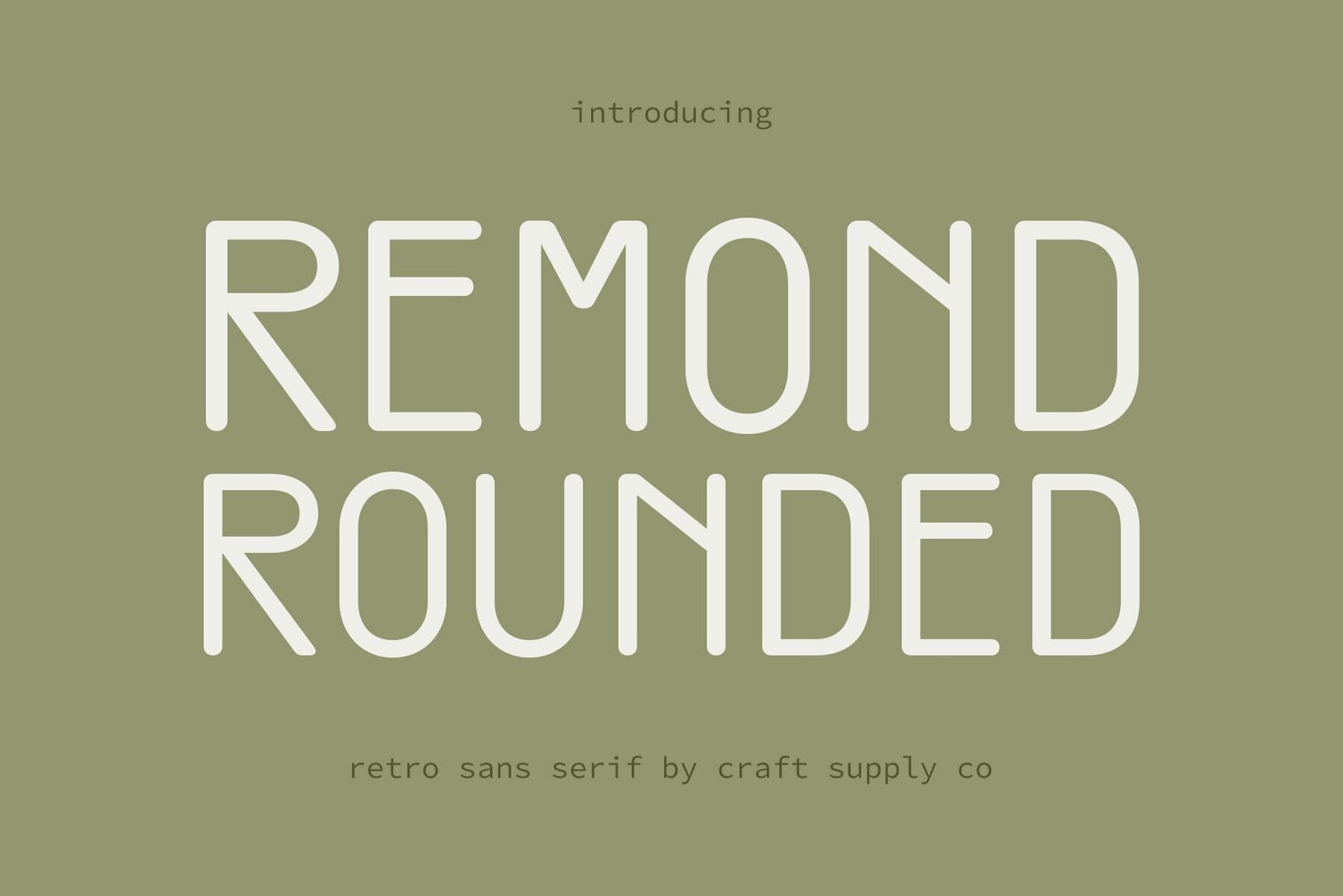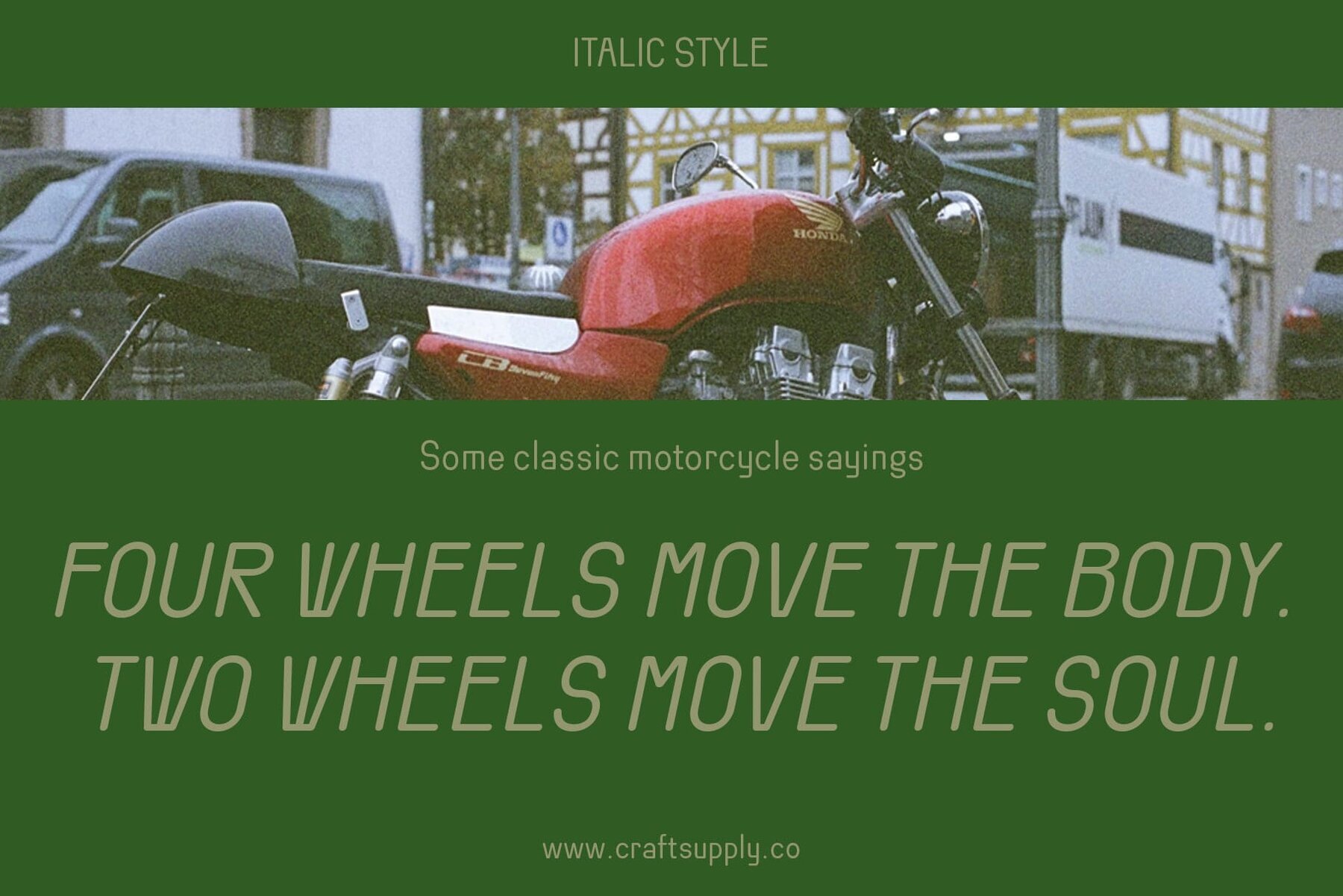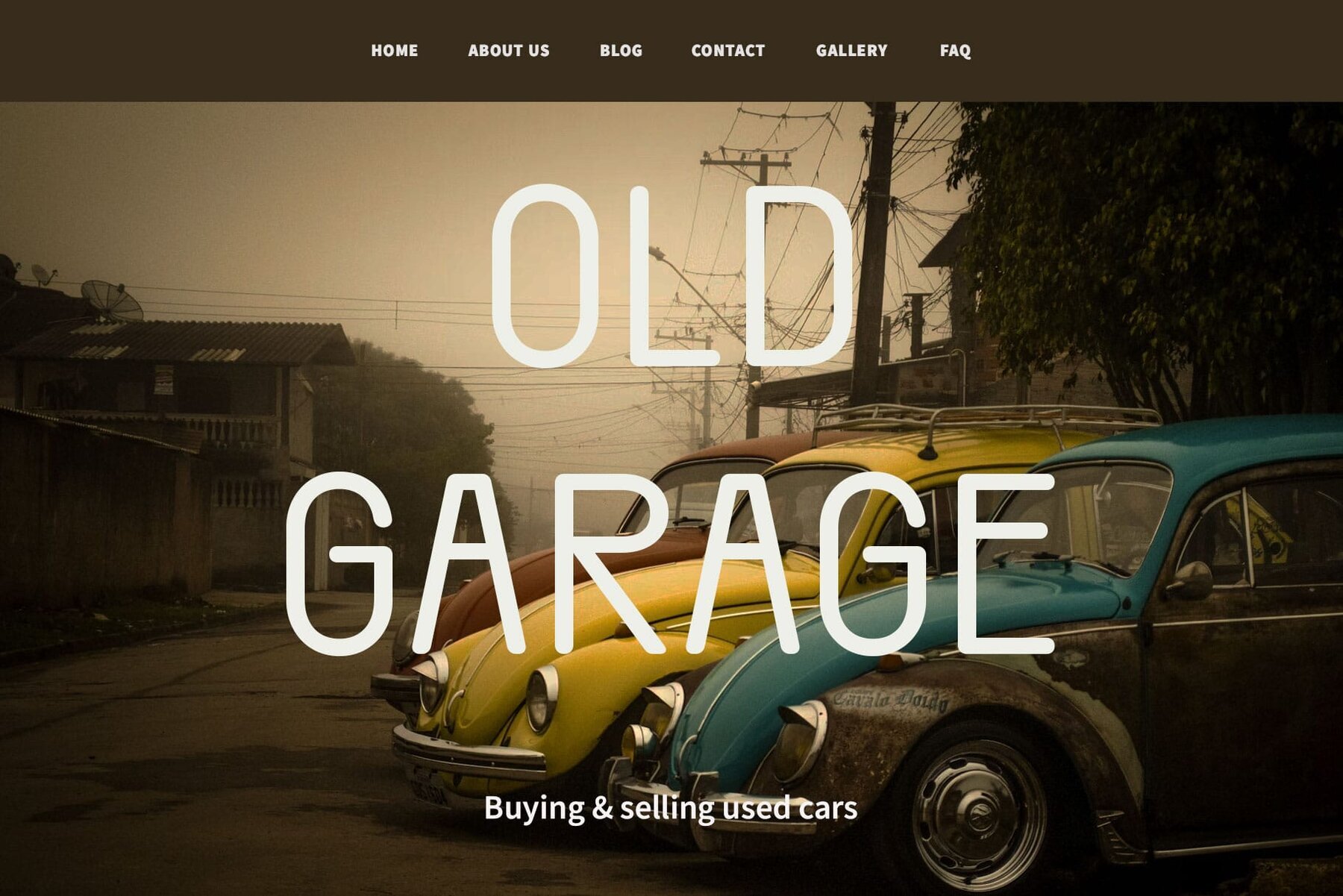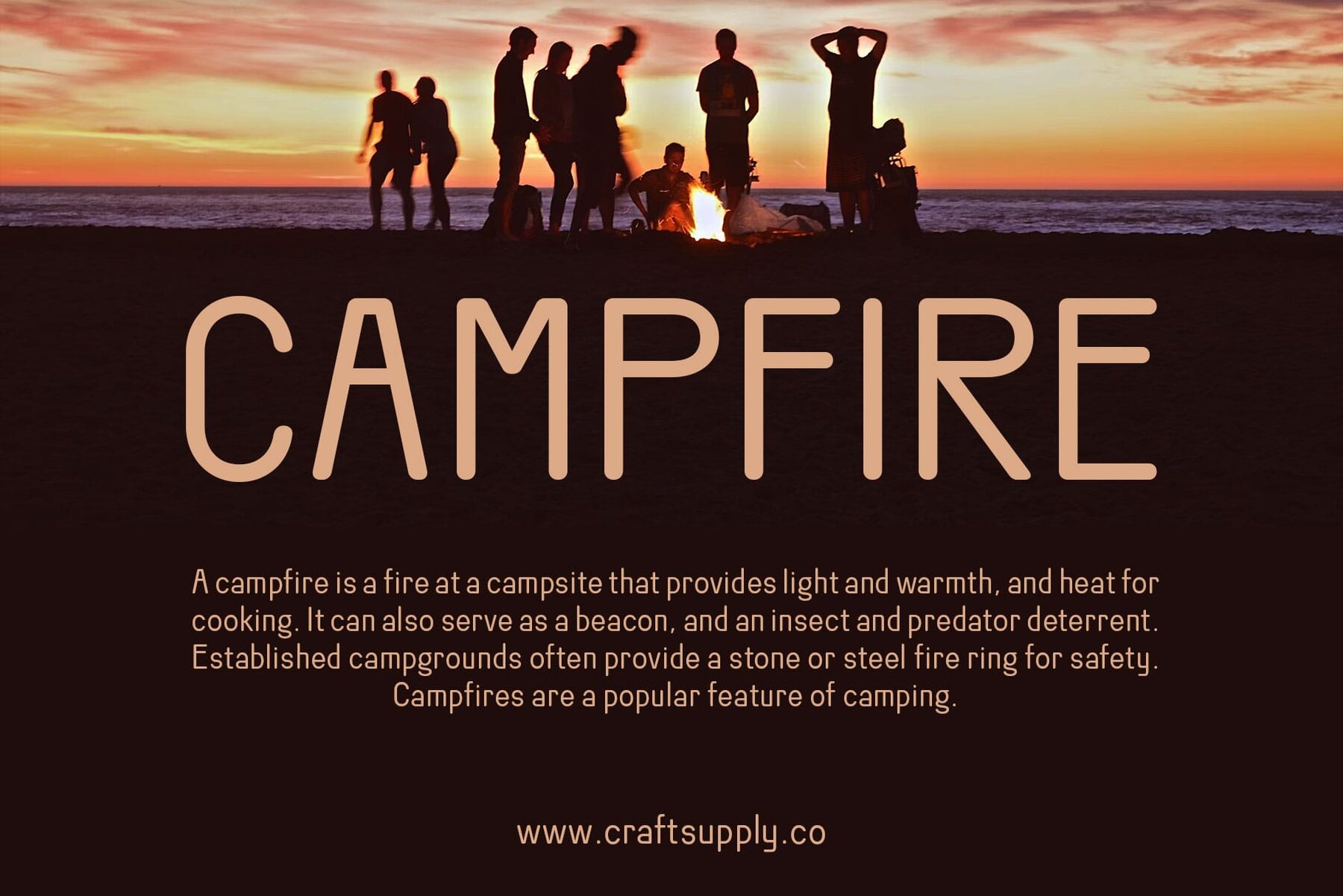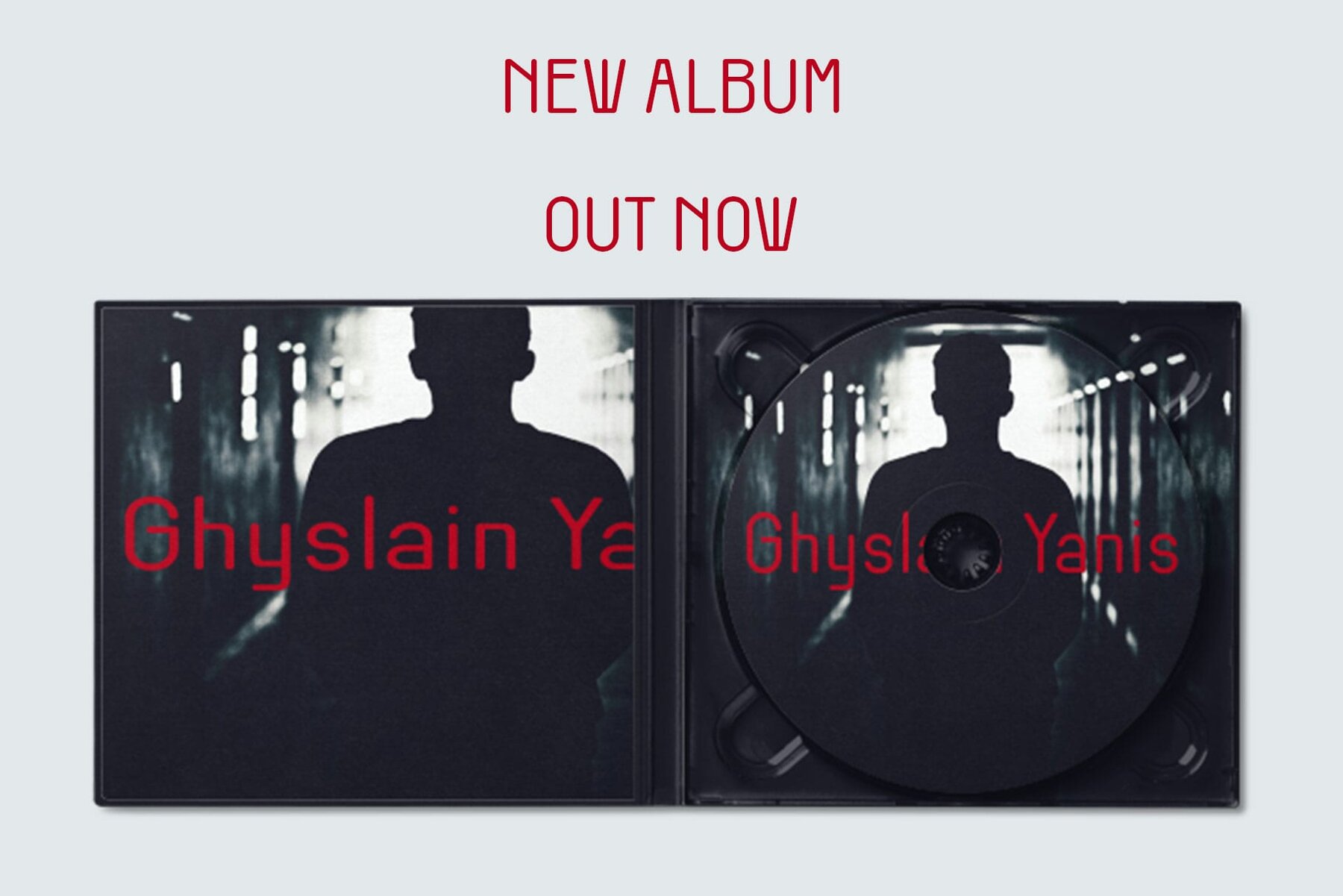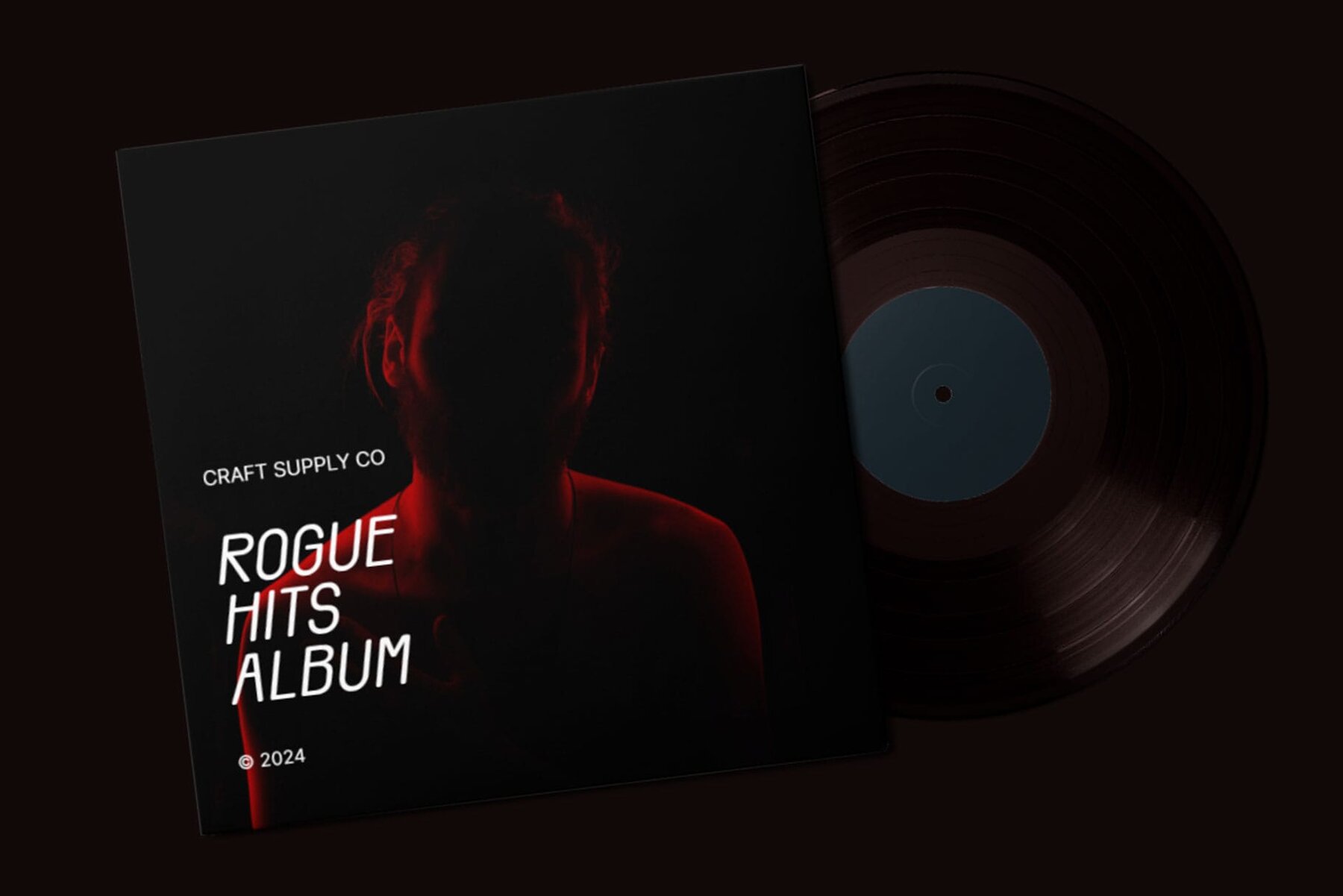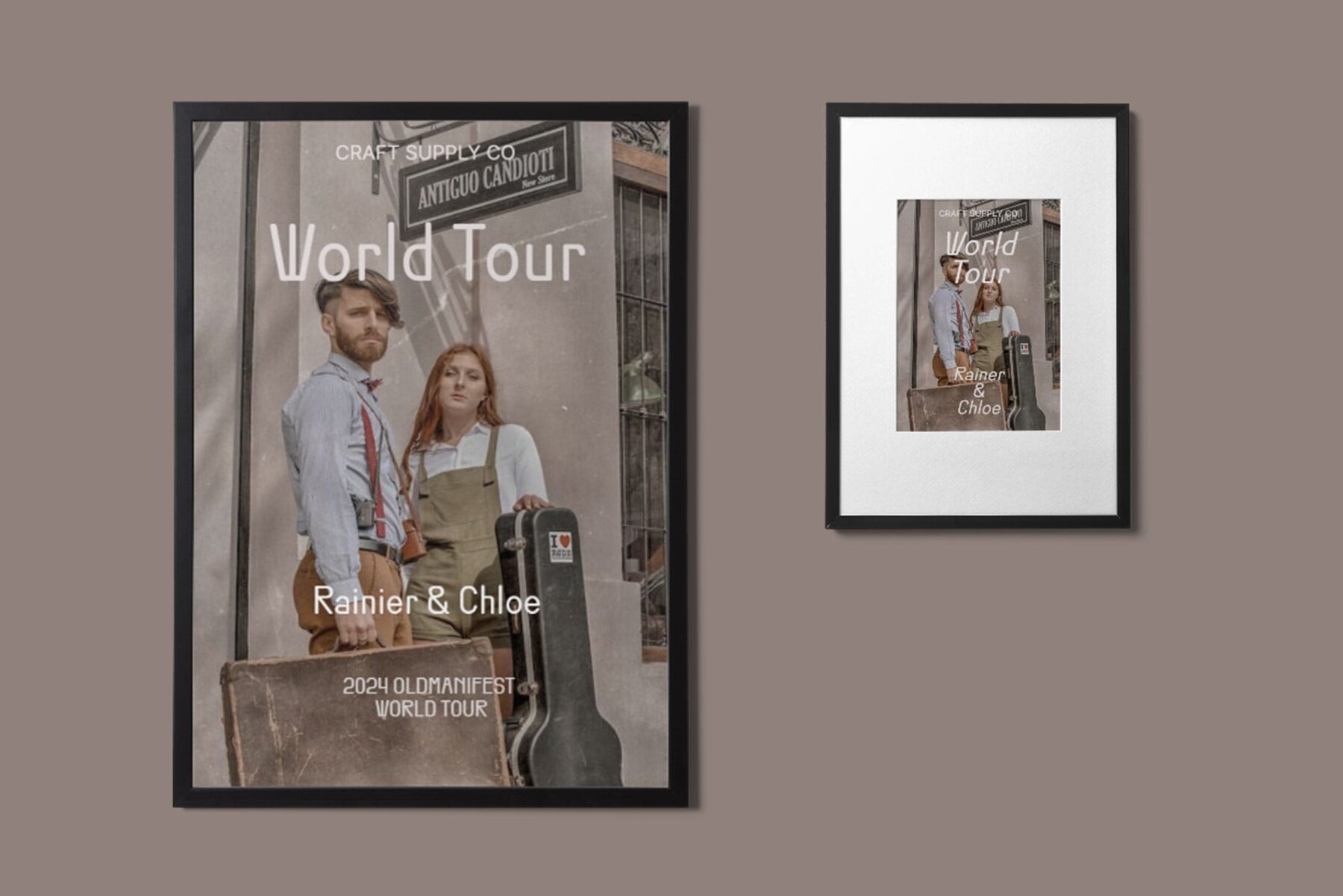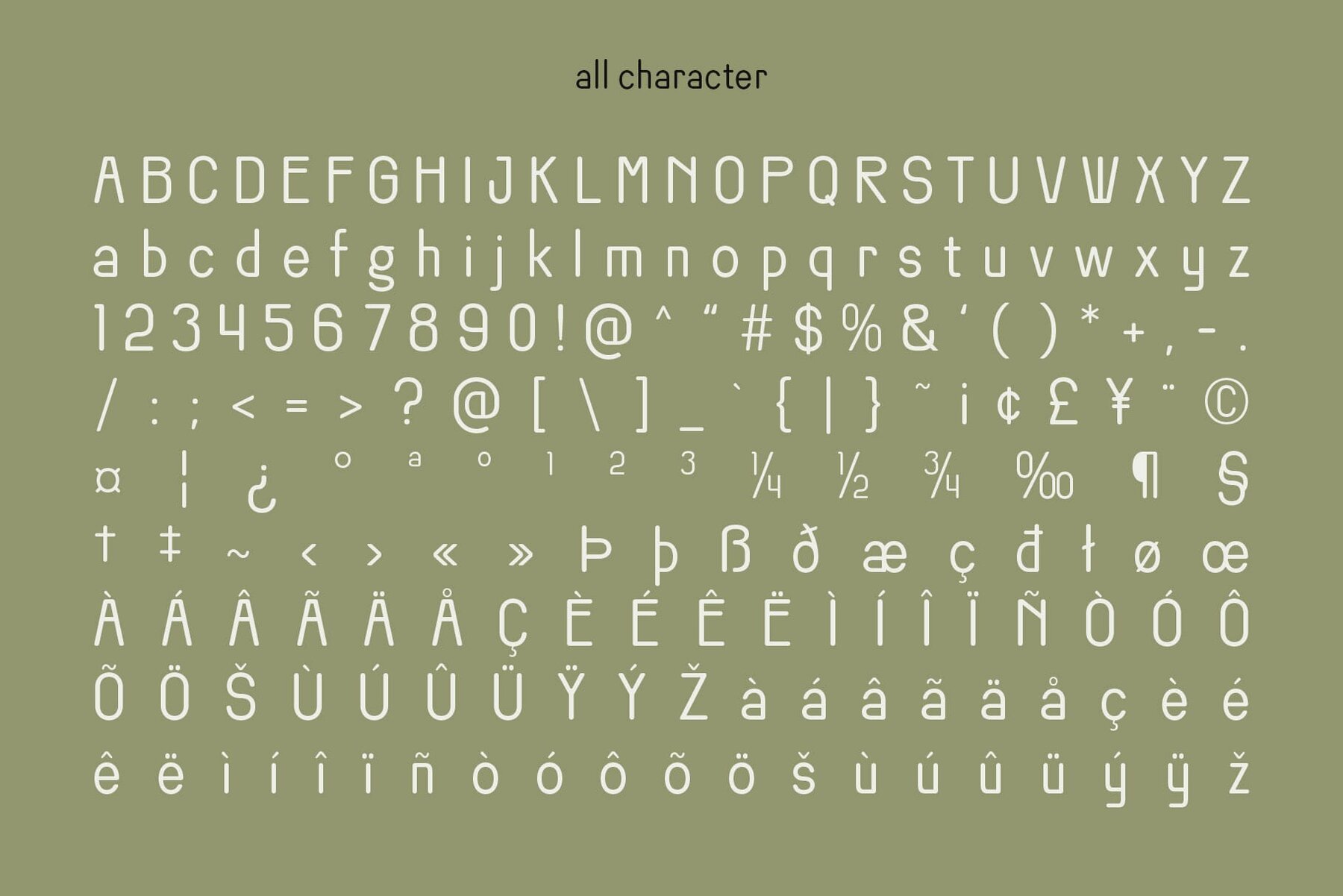
Remond Rounded Font
Remond Rounded by Craft Supply Co. is a welcoming sans serif font characterized by its soft and condensed design. It offers an inviting aesthetic, perfect for a variety of applications. With a low-contrast appearance, Remond Rounded ensures legibility across multiple platforms and sizes, making it ideal for both digital and print projects. The rounded edges and gentle curves of this font evoke warmth and approachability, presenting a friendly aura to readers. Remond Rounded is well-suited for web design, branding, packaging, and editorial work. Its adaptability makes it a preferred choice for designers aiming to convey a welcoming vibe. If you have any questions or need assistance, please contact us. Thank you for choosing Remond Rounded to enhance your creative projects! Best regards, Craft Supply Co.Remond Rounded: Typeface with Friendly Appeal
Low Contrast and Optimal Legibility
Radiating Friendliness